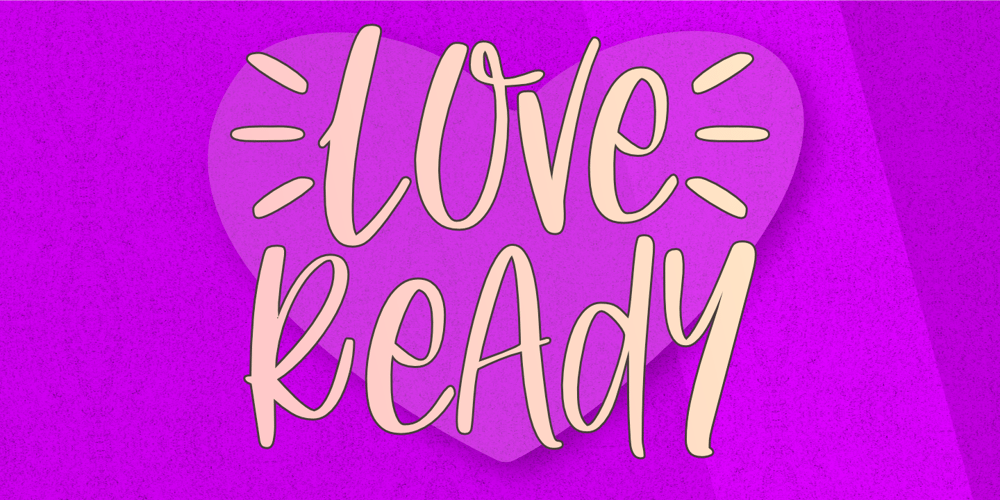
Love Ready Font Family was designed by Aldy Sidik and published by Epiclinez. Love Ready contains 1 styles and family package options. Love Ready is the perfect font to express yourself. It’s playful, fun, and crafty – just like you! With its quirky letterforms and bold style, Love Ready is perfect for everything from product packaging to letterheads.So what’s included : Basic Latin Uppercase and Lowercase Numbers, symbols, and punctuations Multilingual Support. PUA Encoded and fully accessible without additional design software Simple Installations works on PC & Mac Thank You.